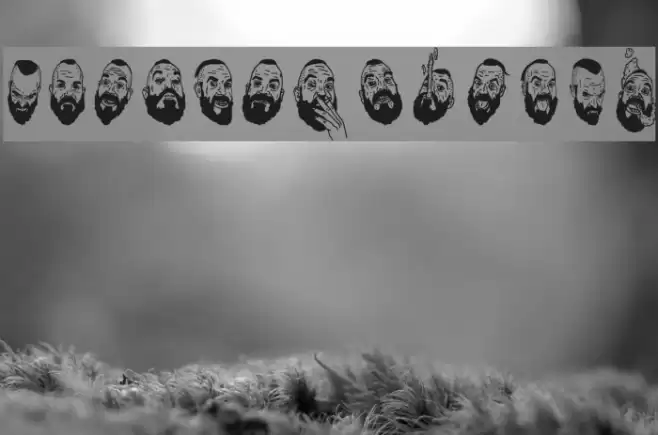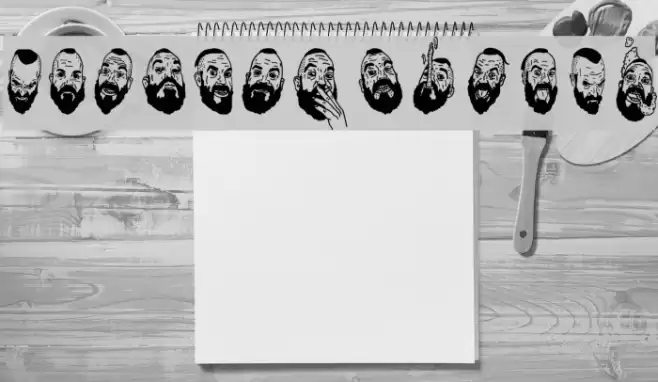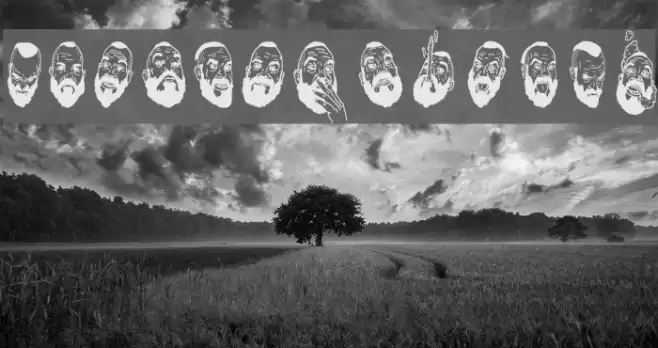
Woodcutter Self-portraits Font
Woodcutter Self-portraits Description
A highly decorative and illustrative font composed of expressive, hand-drawn bearded faces in various emotional and comedic poses, each representing a different character or symbol. The style is bold, playful, and visually engaging, with strong black-and-white contrast and detailed line work.
Expressive, hand-drawn font made of bearded faces as characters from Uncategorized fonts.
- Proposed Projects: Posters, album covers, comic titles, event flyers, novelty branding, creative social media graphics.
- Overall Style: Decorative, Playful, Illustrative
- Use Case: Headlines, Logos, Posters, Artistic projects